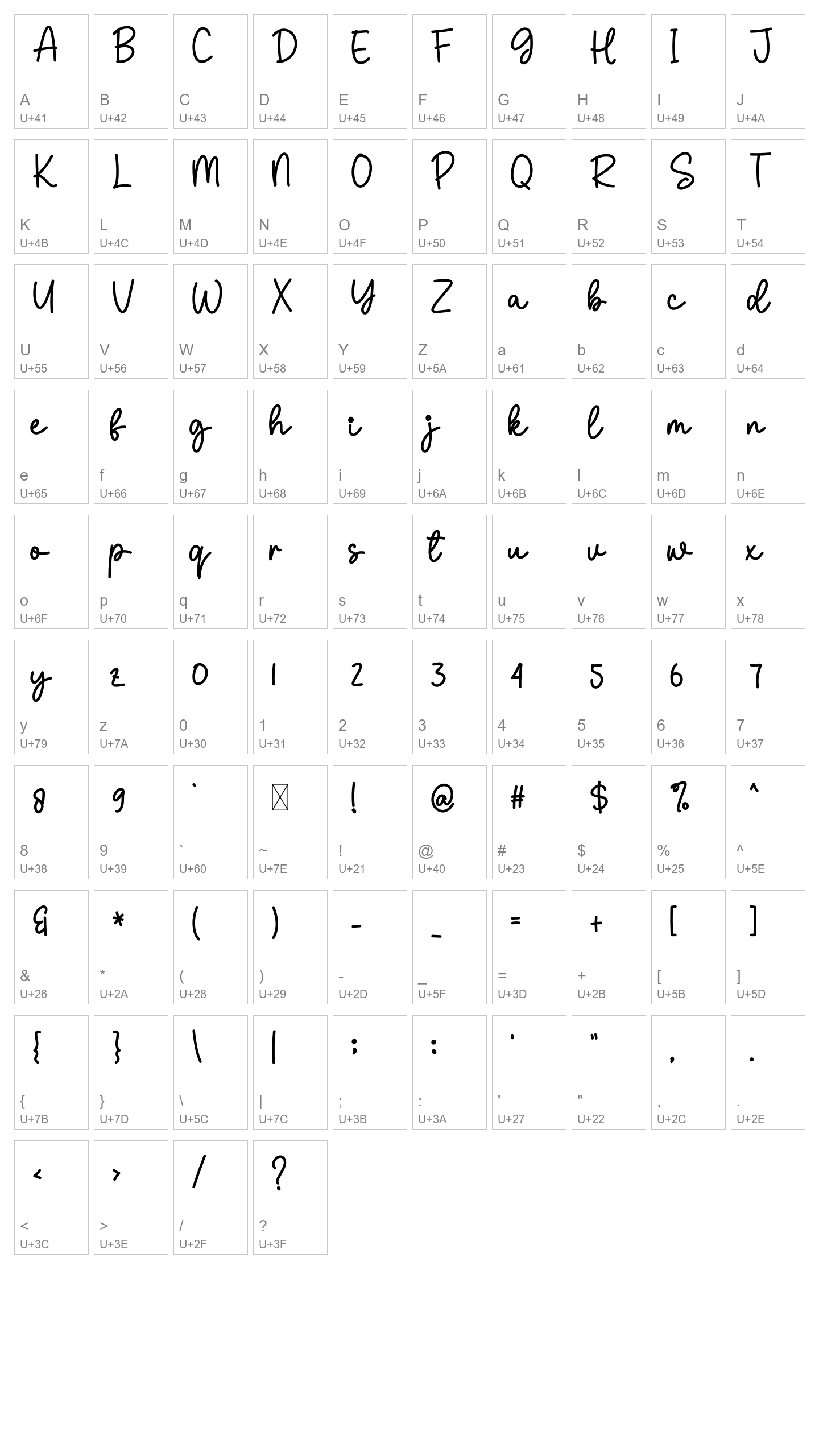
Positive
This font retains a classy calligraphic influence while feeling contemporary and fresh. This versatility will attract a wide range of creative ideas, from letterheads and titles to stationery.